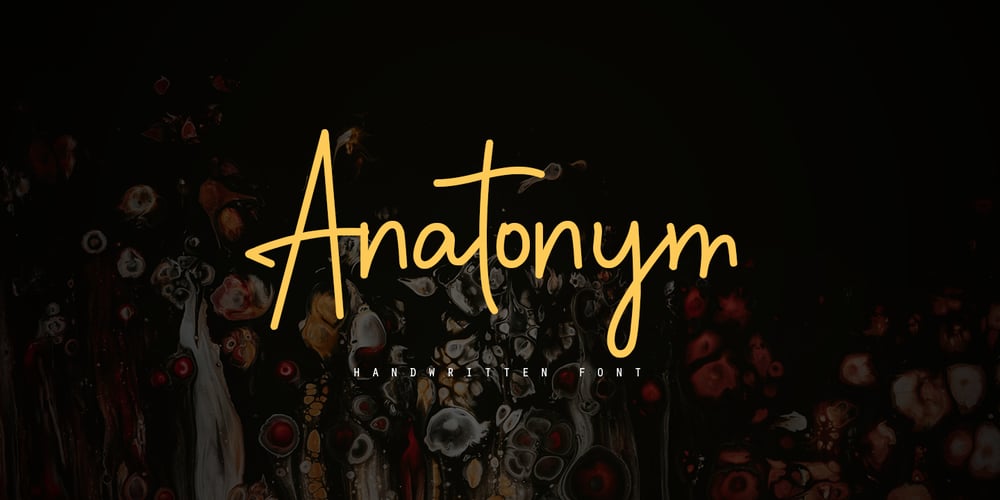
Anatonym
Anatonym font
Anatonym Font Family was designed by Amar Lettering and published by Just Lett. Anatonym contains 1 styles and family package options. Anatonym is a script and handwritten font. It was very carefully designed with the Pen Tool on Illustrator. Anatonym is perfect for your all design project such as wedding invitation, flyer design, poster design, typography, logo name, signature, book cover, etc.